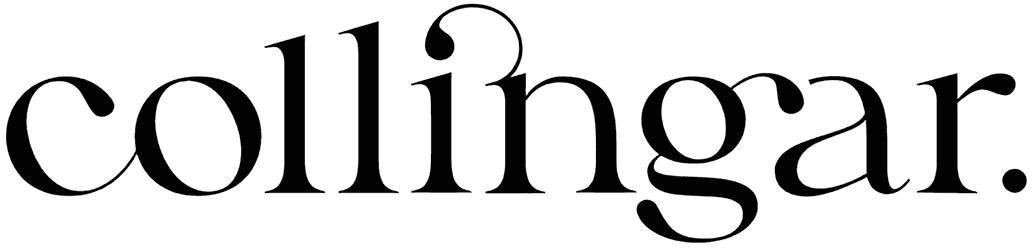
Collingar Font
A good serif font such as Collingar can tell the audience to anticipate high-end graphic content like posters, branding, logos, presentations, or headlines. Its simple form adds a minimalistic touch to your editorial projects and shares a feeling of trustworthiness, confidence, and formality with the customers. Check our archive for more fonts in the same category and daily updates.